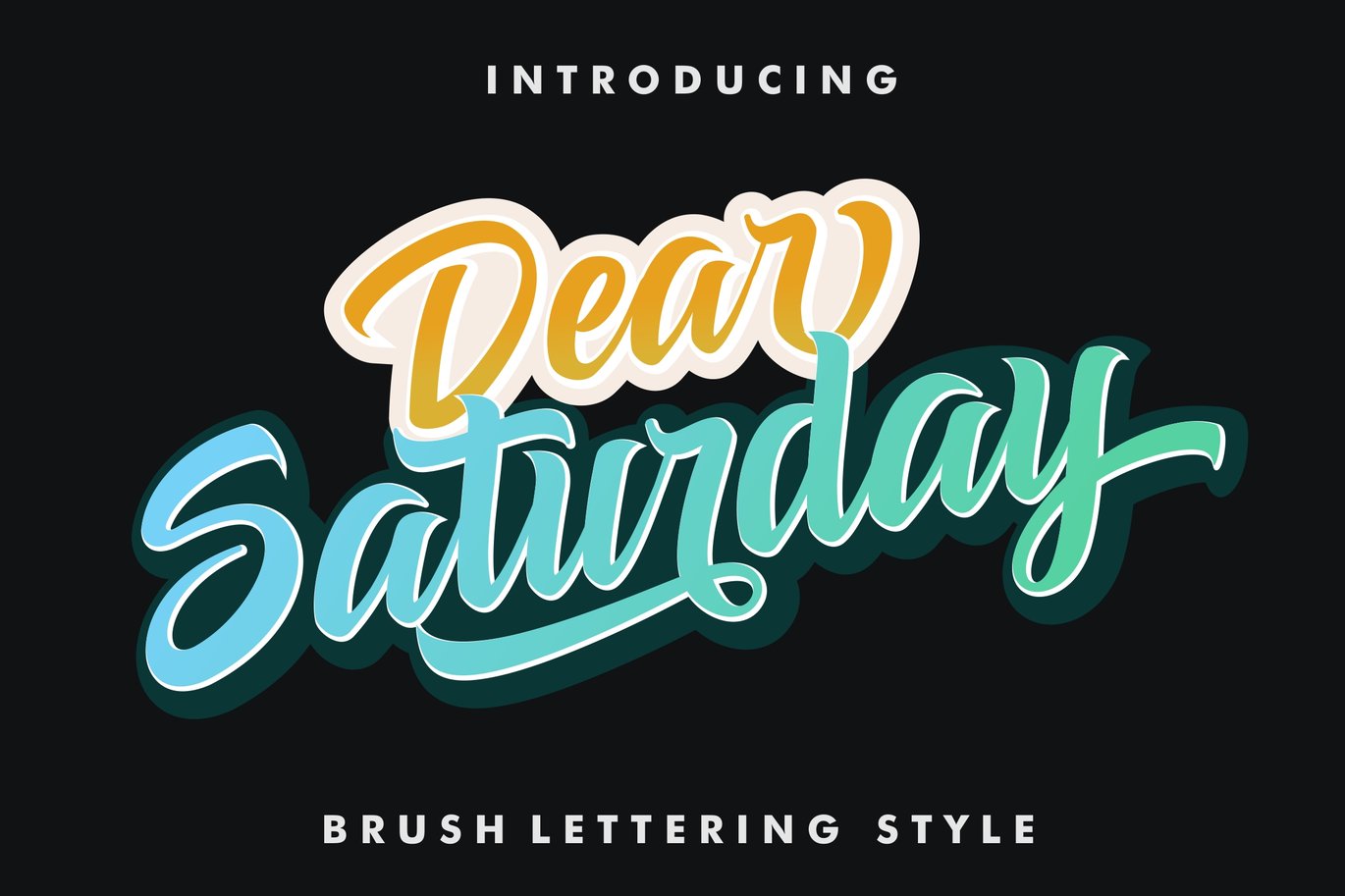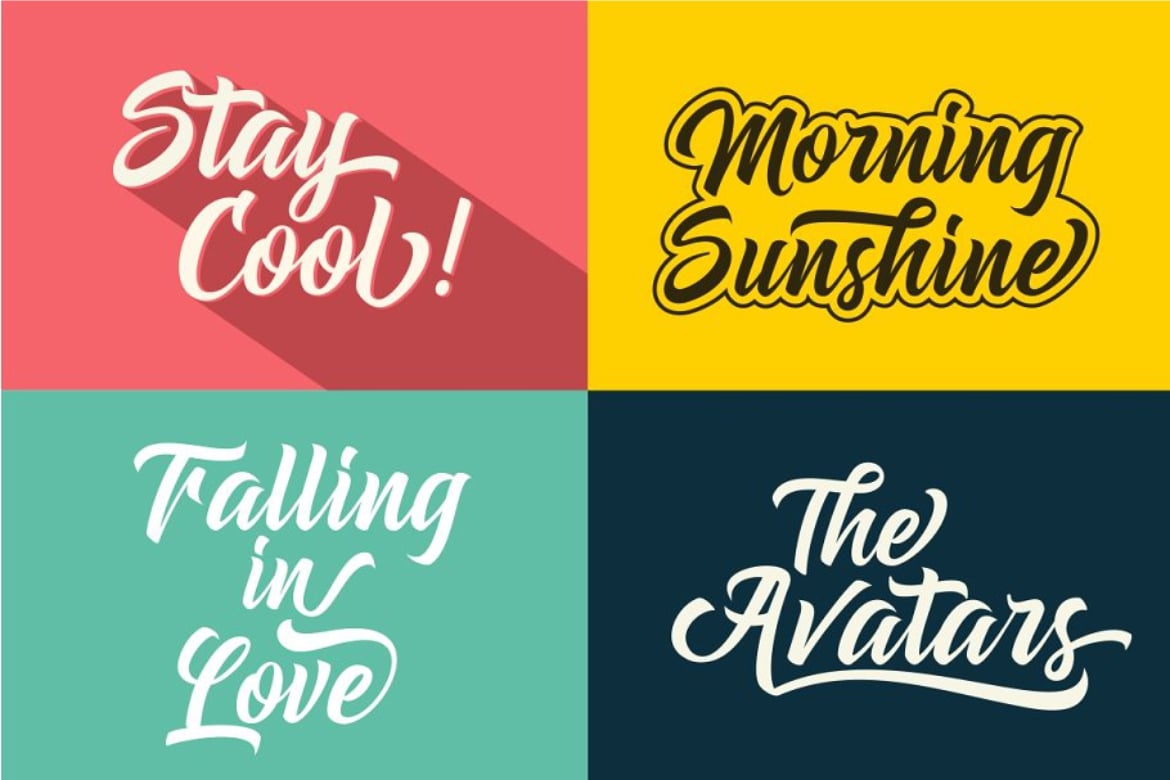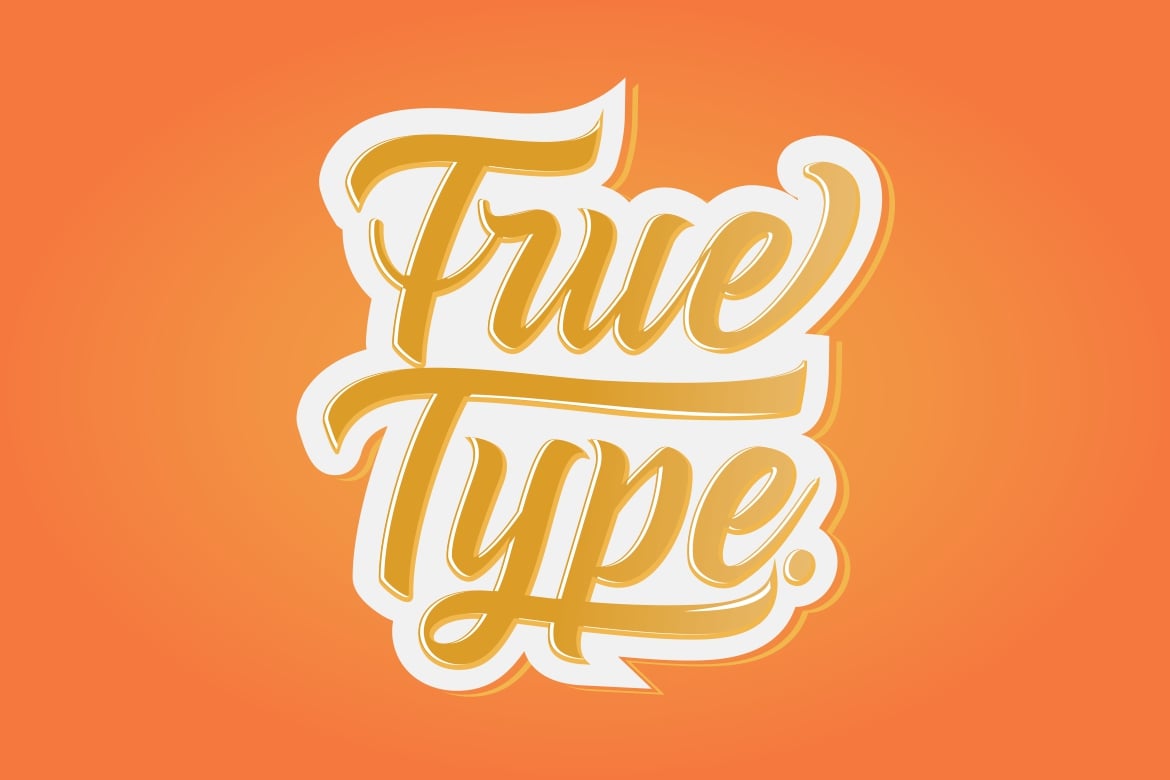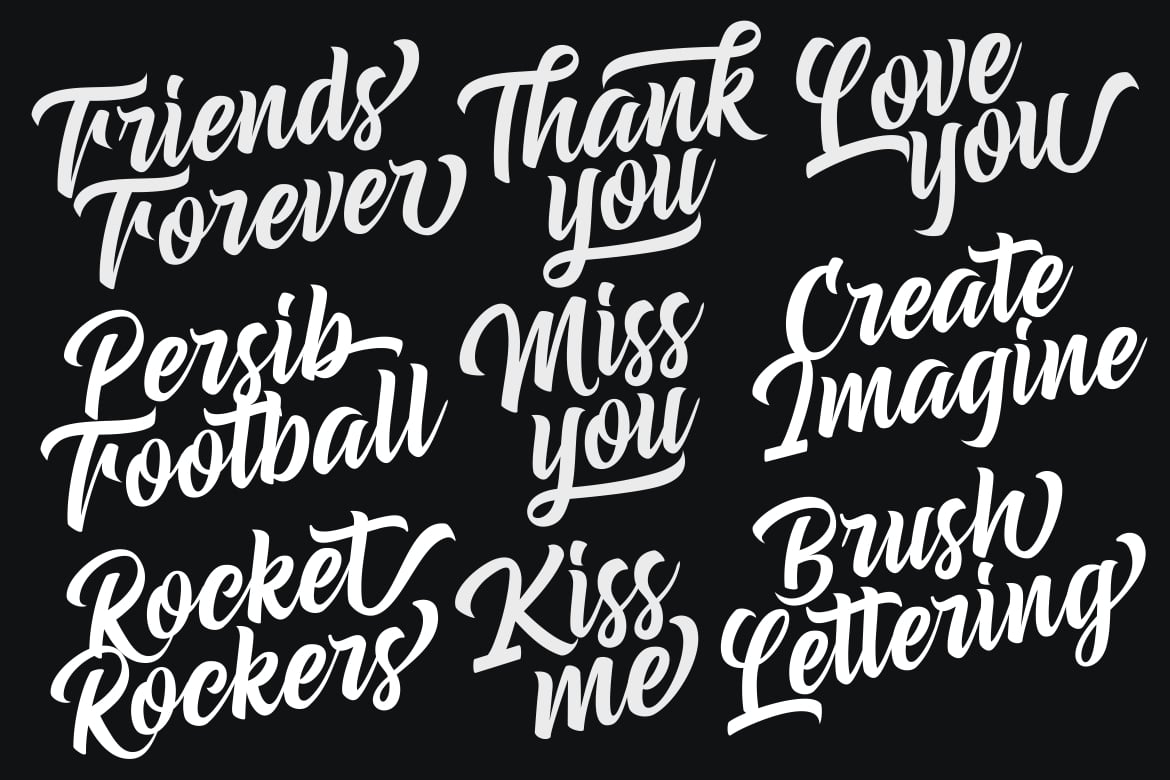
Dear Saturday – Brush Lettering Font
Dear Saturday this font designed with straight and strong in every curves lines, made its has a beauty inside each letter. dear saturday also have opentype features (such as stylistic set 01 – stylistic set 03, stylistic alternate, swash, and standart ligature) to make your projects easier,this font really suit for designing a poster,logo product, quotes,etc.